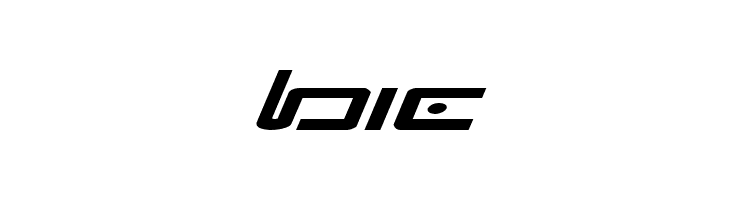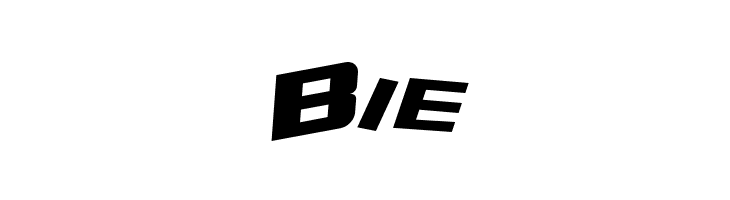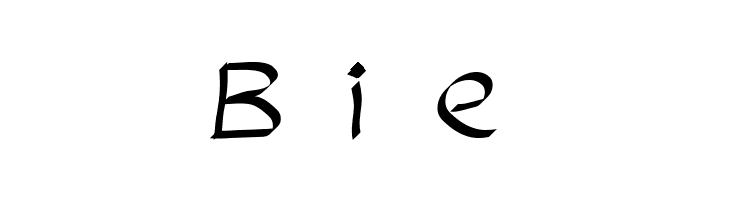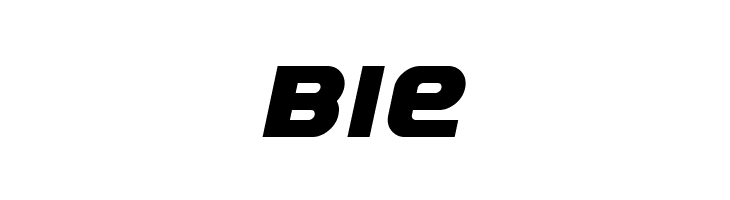
A bold, slanted font with high contrast and a dynamic, modern style.
A futuristic, italicized font with expanded, geometric letterforms.
A sleek, italicized font with a modern and sophisticated style.
A bold, slanted font with tight spacing and a modern, energetic style.
An artistic, calligraphic font with dynamic strokes and expressive style.
A bold, dynamic font with flowing, slanted letterforms.
A sleek, modern oblique font with sharp angles and a dynamic appearance.